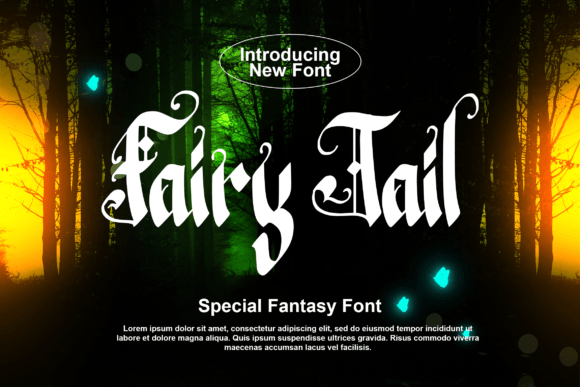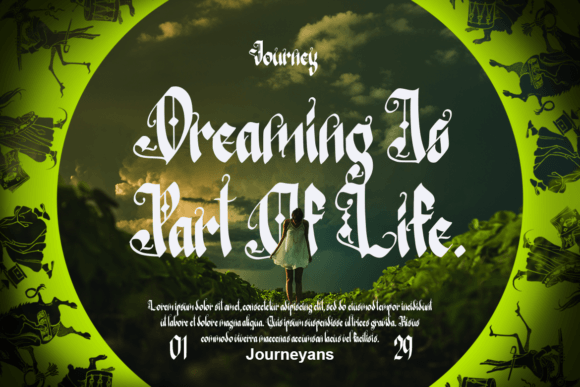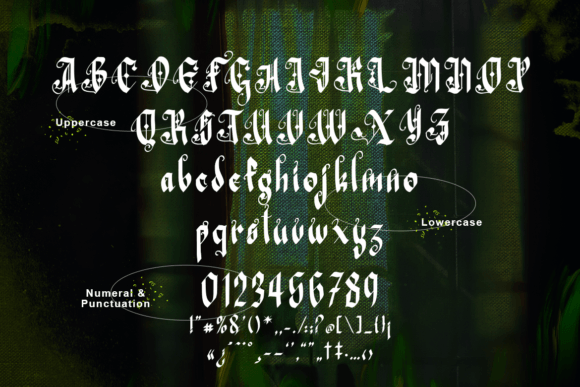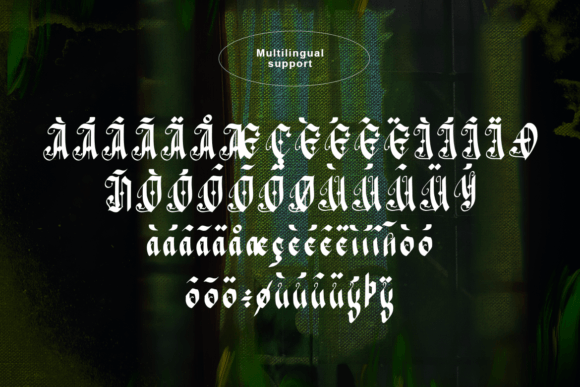
Fairy Tail Font
About the Fairy Tail Font
Presenting Fairy Tail Font, a unique and stylish typeface that will make your work stand out. Fairy Tail is a special fantasy blackletter font that will immediately take you into a fairytale land. Add this cartoon-like font to a wide range of creations related to children’s adventures, games, or parties.
Fairy Tail’s playful, cartoonish style makes it ideal for children’s book titles, playful branding for toys or confectionery, and eye-catching posters for events targeting a younger audience. It also works well in short headlines or taglines where its whimsical nature adds visual interest. However, avoid using it for body text or long passages; its decorative nature makes it less legible at smaller sizes.
This font pairs well with clean sans-serif fonts like Open Sans for body copy, creating a strong contrast and enhancing readability. For a more whimsical feel, consider pairing it with a rounded script font for a cohesive yet dynamic look. Avoid pairing it with other highly decorative or overly ornate fonts, as this would create visual clutter.
Fairy Tail’s core personality is undeniably playful and friendly, conveying a sense of fun and lightheartedness. Its bold strokes ensure strong visual impact, particularly within projects emphasizing childhood fantasy and imagination.